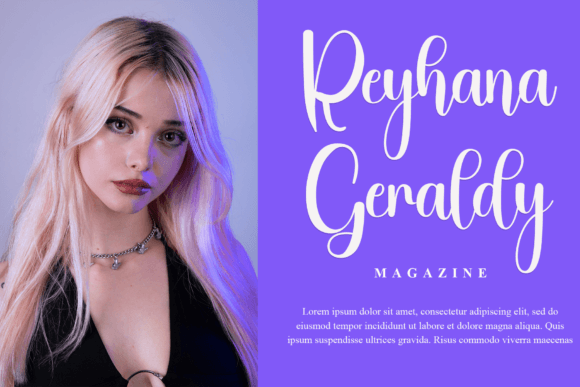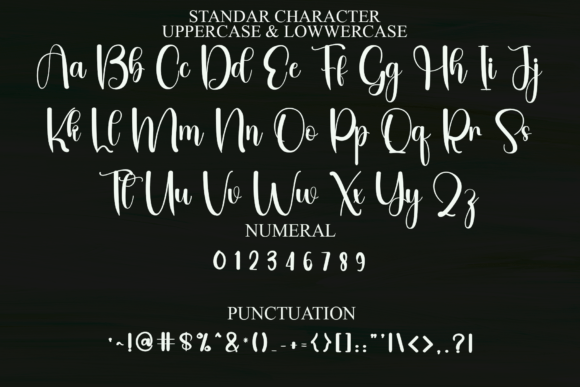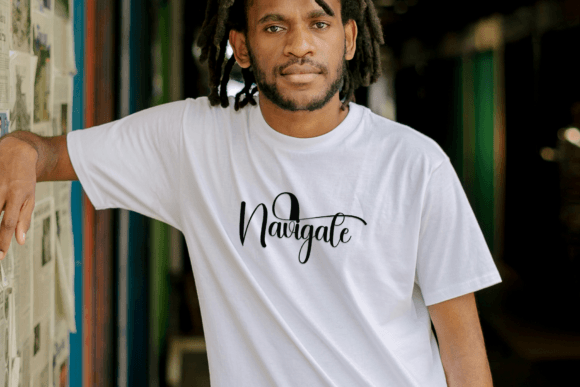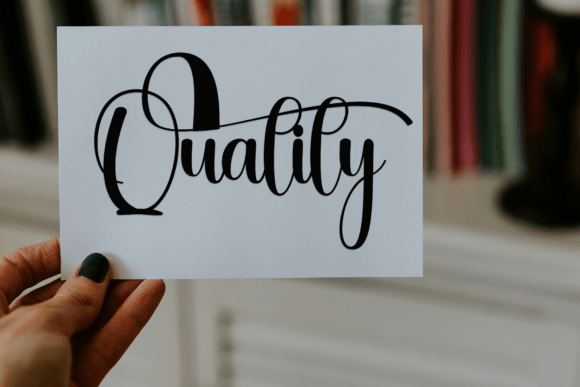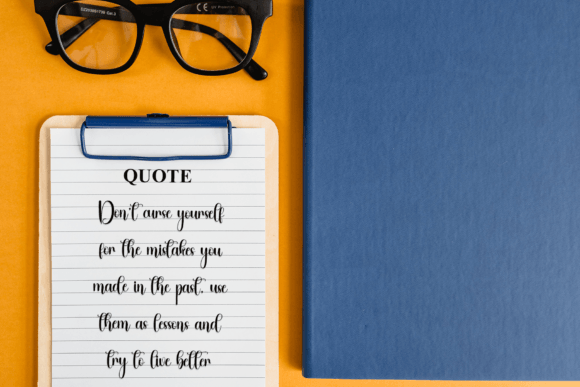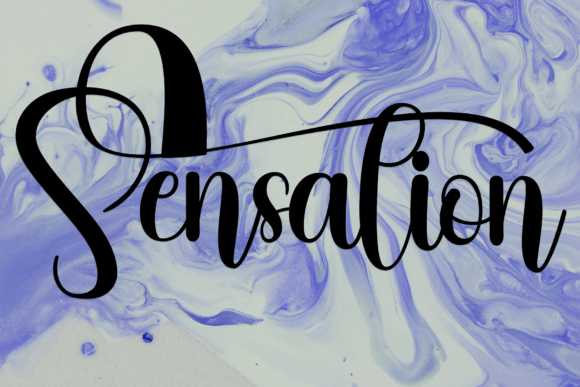
Introducing Generation Font: Elevate Your Designs with Timeless Elegance
In the world of typography, a font can make or break the aesthetic of a design project. For designers and crafters seeking to infuse their work with a touch of sophistication and elegance, Generation Font emerges as a stellar choice. This stylish handwritten font, with its contemporary atmosphere and impeccable form, is inspired by timeless classic calligraphy, making it a versatile tool for a wide array of design needs.
The Essence of Generation Font
Generation Font is not just any ordinary font; it’s a carefully crafted typeface that brings balance and variety to the table. Its design is rooted in the principles of classic calligraphy, yet it boasts a modern flair that ensures your projects stand out in a crowded digital landscape. Whether you’re working on a branding project, a website, a digital illustration, or crafting beautiful quotes and phrases, Generation Font is poised to enhance the beauty of your work.
Key Features of Generation Font
- PUA Encoded for Easy Access: One of the standout features of Generation Font is its PUA (Private Use Area) encoding. This means that accessing the font’s extensive range of glyphs and ligatures is straightforward, allowing you to explore a vast creative potential without needing specialized software or technical know-how.
- Contemporary yet Classic: The font strikes a perfect balance between modern design sensibilities and traditional calligraphic elegance. This duality makes it incredibly versatile, suitable for projects that require a touch of sophistication and those that demand a more modern aesthetic.
- Balanced and Varied: Generation Font offers a range of weights and styles, ensuring that you can adapt your typography to fit the mood and requirements of your project. This variability, combined with its inherent balance, ensures that your designs are always visually appealing and coherent.
Applications of Generation Font
The versatility of Generation Font makes it suitable for a myriad of applications. Here are a few ideas to get you started:
- Branding and Logotypes: Use Generation Font to create a memorable brand identity. Its unique blend of classic and contemporary styles can help your brand stand out.
- Web Design: Enhance your website’s typography with Generation Font, providing a premium feel to your online presence.
- Digital and Print Media: Whether you’re designing a brochure, a poster, or digital content for social media, this font can add a touch of elegance and professionalism.
- Crafting and DIY Projects: For crafters, Generation Font can be used in a variety of DIY projects, from custom vinyl decals to handcrafted cards and invitations.
Tips for Maximizing Generation Font’s Potential
To make the most out of Generation Font, consider the following tips:
- Experiment with Ligatures: Take advantage of the font’s ligatures to add a unique touch to your text. Ligatures can help in creating a more organic and flowing text.
- Play with Weights: Don’t be afraid to mix different weights of Generation Font within your design. This can help in creating visual hierarchy and adding depth to your typography.
- Pair it Wisely: When pairing Generation Font with other typefaces, choose fonts that complement its classic yet modern vibe. A sans serif font for body text can create a beautiful contrast.
Generation Font is more than just a typeface; it’s a tool for designers and crafters to bring their creative visions to life. With its elegant design, versatile application, and user-friendly features like PUA encoding, it’s poised to become a go-to font for projects that demand a blend of timeless elegance and contemporary flair. Whether you’re a professional designer or a hobbyist, Generation Font invites you to explore new dimensions of typographic creativity.
So, dive into the world of Generation Font and discover how this stylish handwritten font can elevate your design projects to new heights of aesthetic excellence.